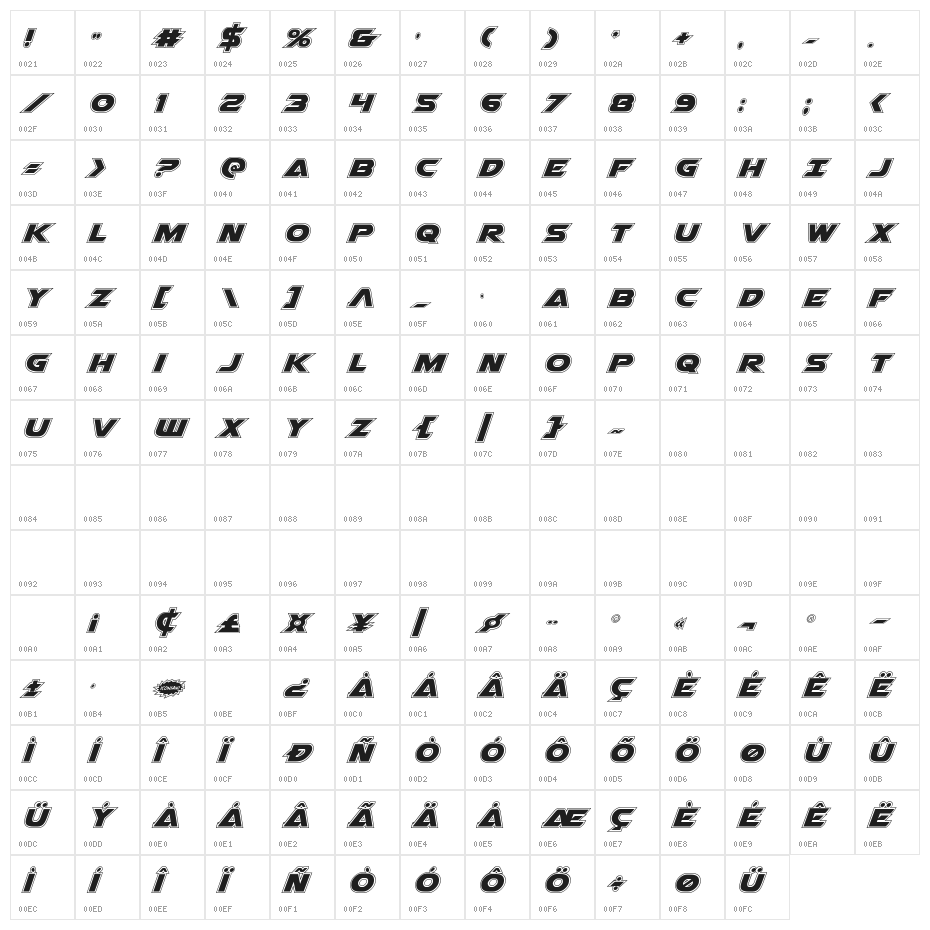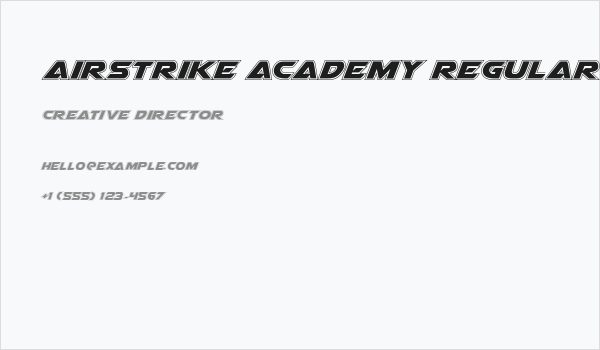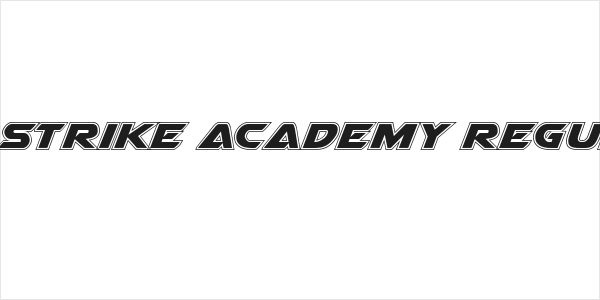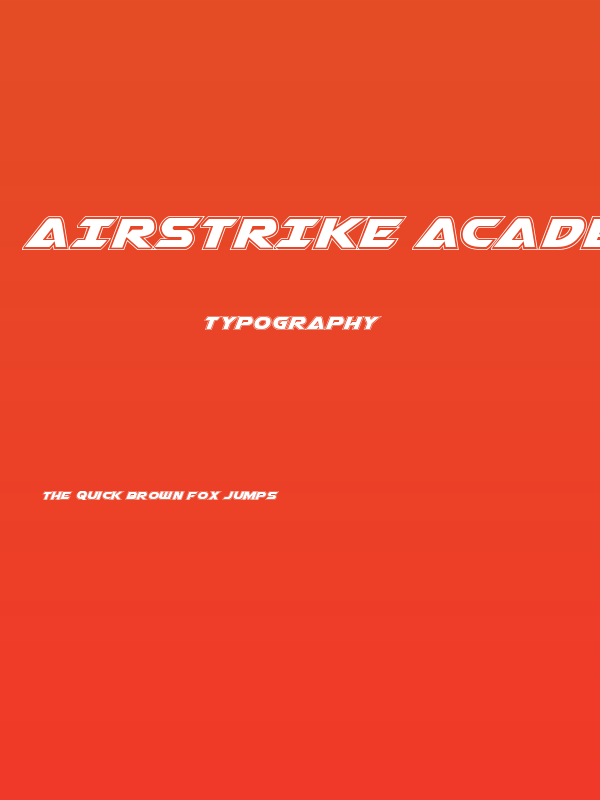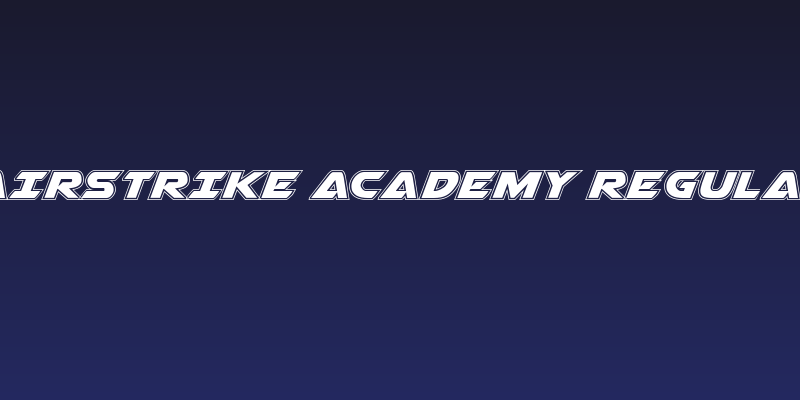
Airstrike Academy Regular Font
Airstrike Academy Regular Description
This font features a bold, dynamic style with a strong presence. The characters are outlined with a thick border, giving them a three-dimensional effect. The design incorporates sharp angles and a slight slant, adding a sense of motion and energy. The uppercase and lowercase letters maintain consistency in style, while the numbers and special characters complement the overall aesthetic. This font is ideal for projects that require a modern and impactful look.
Proposed ProjectsIdeal for sports branding, video game titles, posters, and dynamic advertising materials.